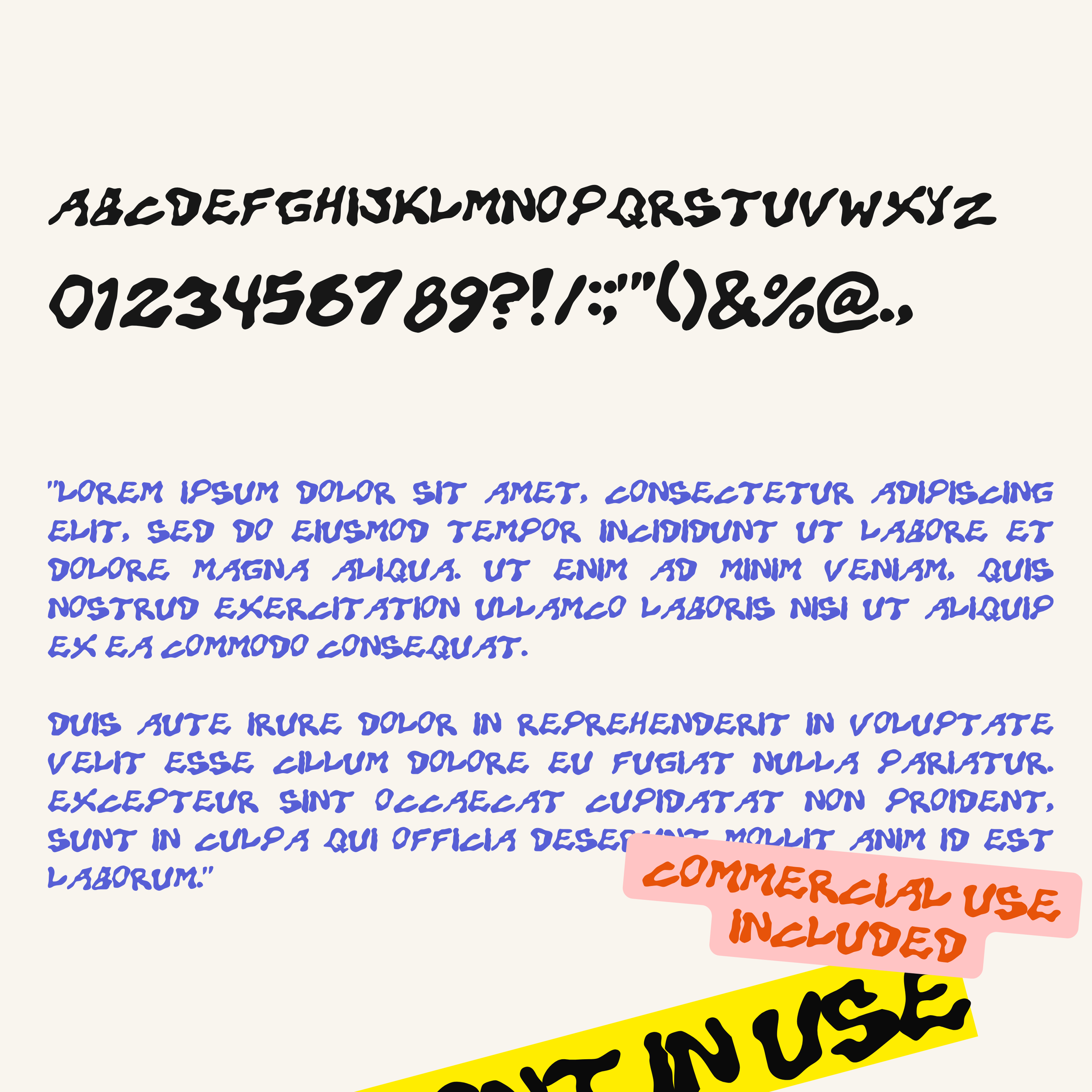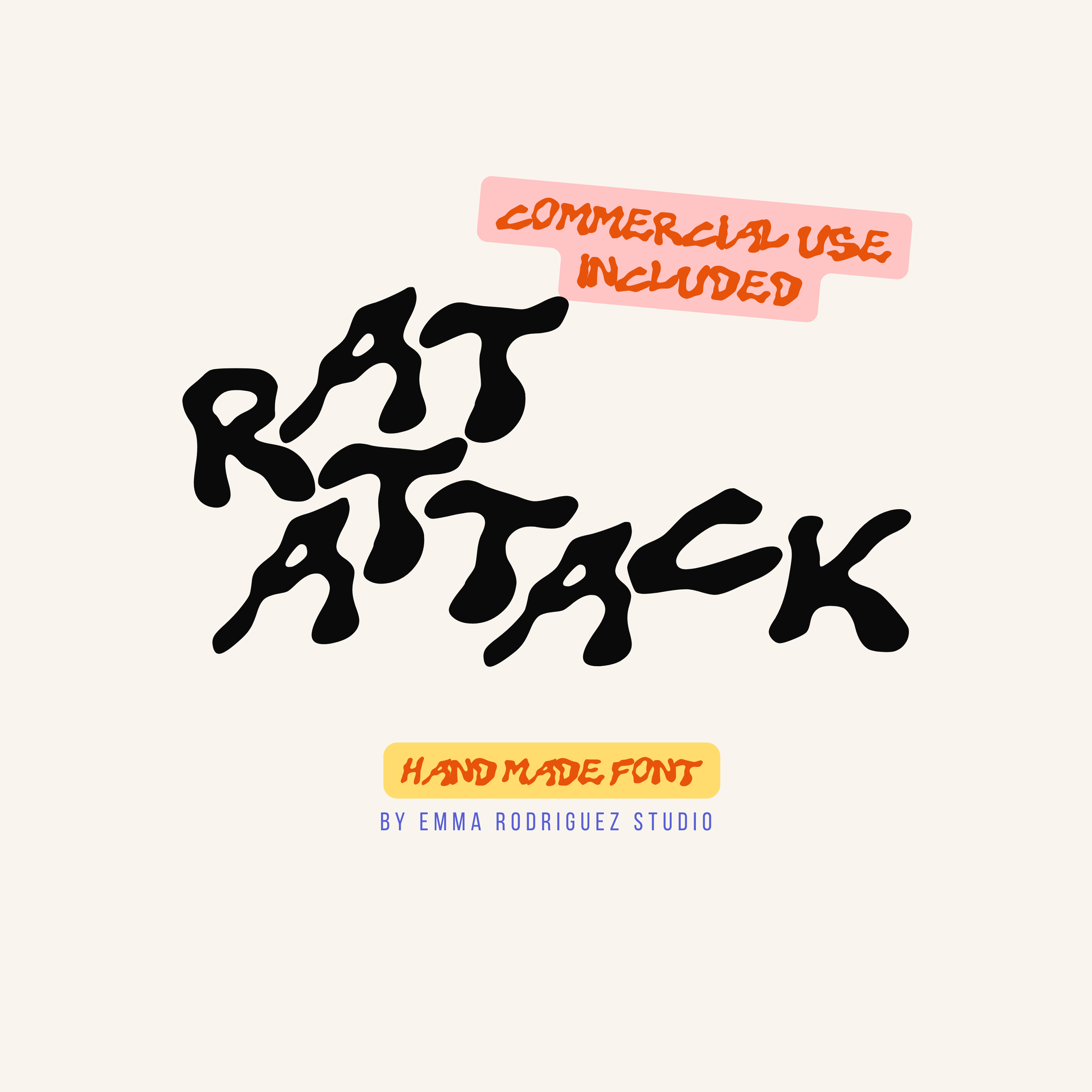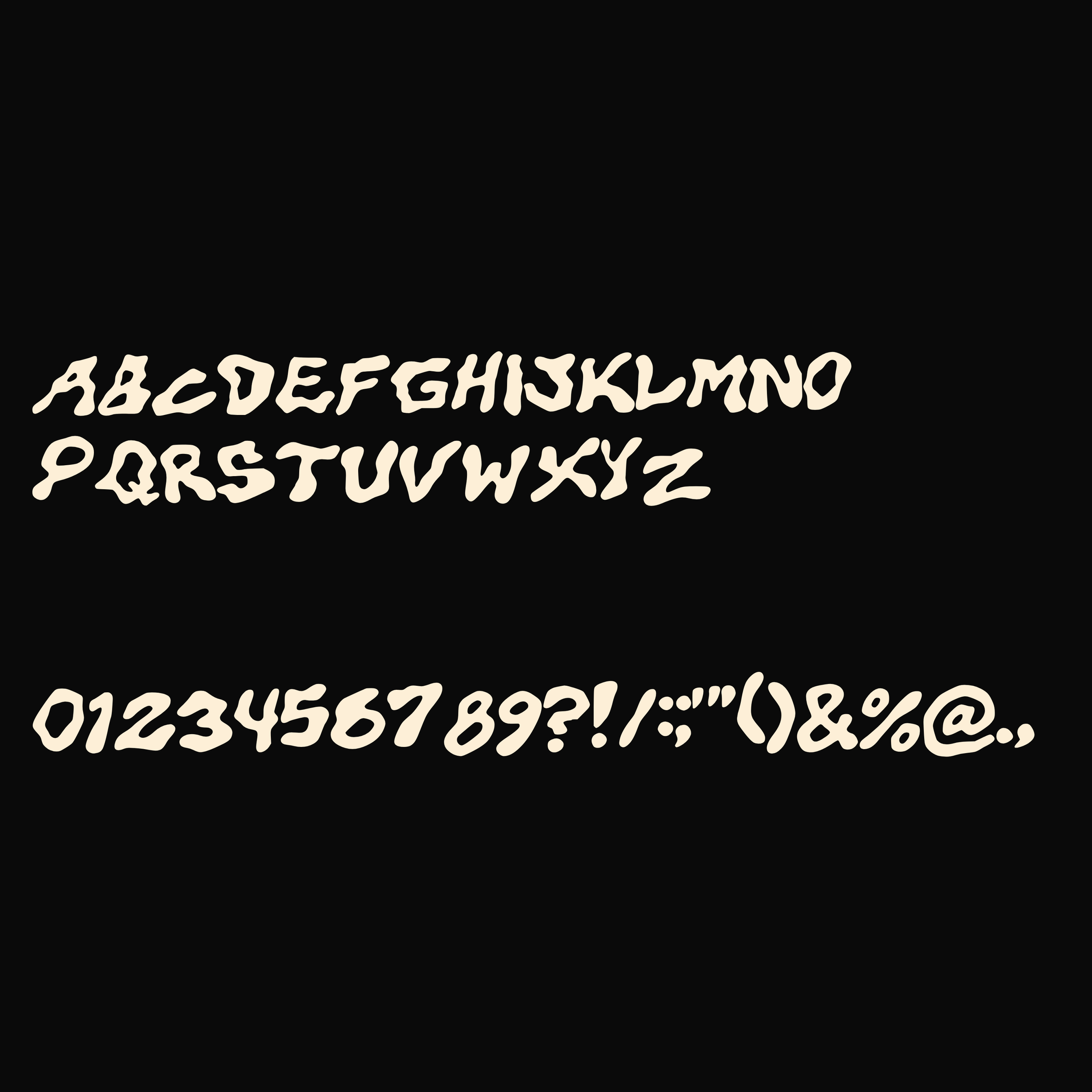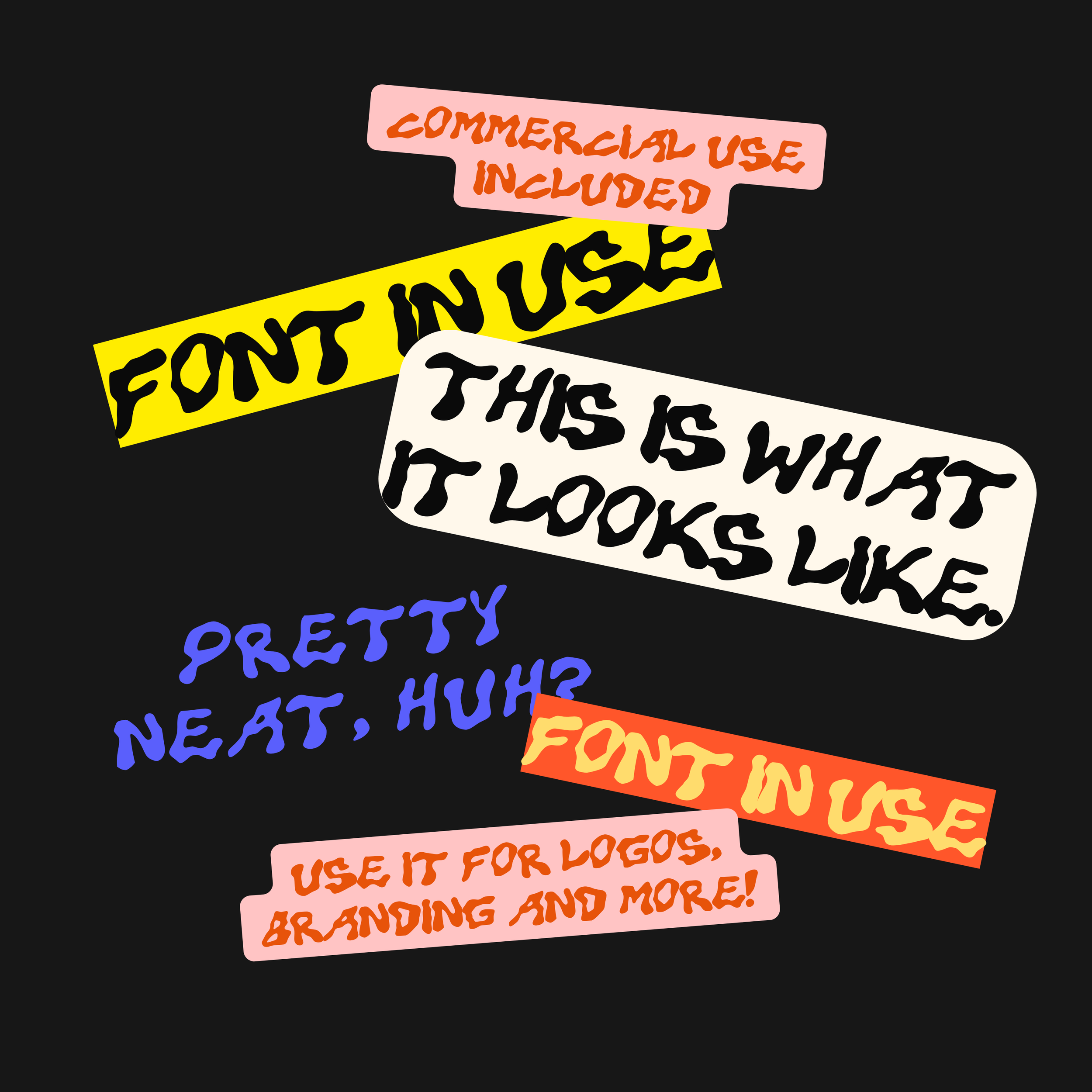
Rat Attack Font - Grungy Punk Type
Rat Attack is a grungy hand drawn display font built from warped, inky letterforms, rough shapes and deliberately uneven proportions. It pulls from underground graffiti, DIY punk graphics, photocopied gig posters and raw hand painted lettering, giving it a loose, slightly aggressive feel without becoming unreadable.
This is an all caps font, designed for bold statement typography, gritty layouts and designs that need something louder and less polished.
The irregular forms, strange curves and imperfect edges are intentionally left rough rather than digitally cleaned up. Rat Attack works especially well in designs that need to feel underground, handmade and a little chaotic, whether that is a poster, record sleeve, clothing graphic or experimental brand identity.
Perfect for:
• Gig posters and event graphics
• Album covers and record sleeves
• Underground branding
• Streetwear and apparel
• Editorial layouts
• Zines and independent publishing
• Packaging design
• Stickers and merchandise
• Social media graphics
• Experimental typography
• Art prints and posters
• All caps characters
Please note that Rat Attack is intentionally rough, inky and irregular. Letterforms, spacing, proportions, alignment and overall form may vary throughout the character set. The warped shapes, uneven spacing, rough edges and handmade construction are deliberate features rather than errors, and some manual kerning or letter placement may be useful depending on your layout.